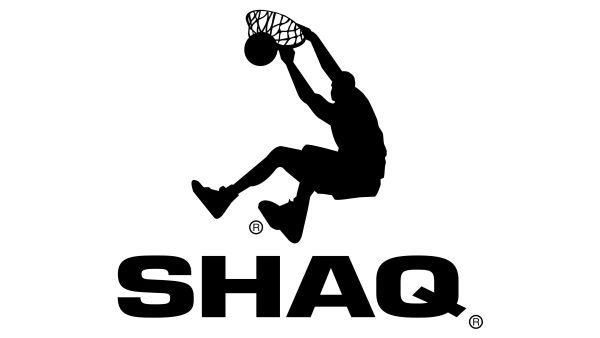
Shaq Font
What is The Shaq Font?
The SHAQ font is most likely inspired by the bold, squared forms of the Eurostile Next Complete Family Pack, a commercial typeface known for its strong geometric structure and modern, techno-driven feel. Its wide stance, sharp curves, and industrial edges match perfectly with the powerhouse branding associated with Shaquille O’Neal. While Eurostile Next is a paid font, we also found a free alternative that captures the same confident, futuristic style—ideal for anyone wanting to recreate the SHAQ logo look without purchasing the full family pack.
About SHAQ
Shaquille O’Neal, widely known as Shaq, is one of the most dominant players in NBA history. Born in 1972, he built his legacy through incredible physical power, agility, and an unstoppable presence on the court, winning four NBA championships and earning numerous accolades. Beyond basketball, Shaq has become a cultural icon through his work as a sports analyst, actor, DJ, entrepreneur, and brand ambassador. His signature branding—often represented with bold, assertive typography—reflects his larger-than-life personality and enduring impact on sports and entertainment.